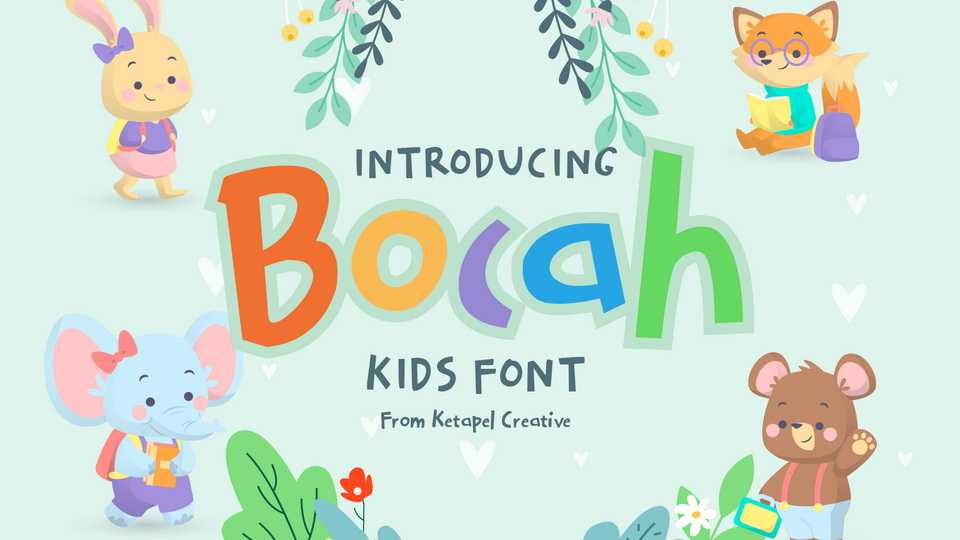
Download Bocah font, a fun and playful hand lettered typeface for kids. Bocah would be perfect for comics, books, greeting cards, toys, posters, baby clothing, picture books or anything that requires a fun and happiness look!
Designer: Ketapel Creative